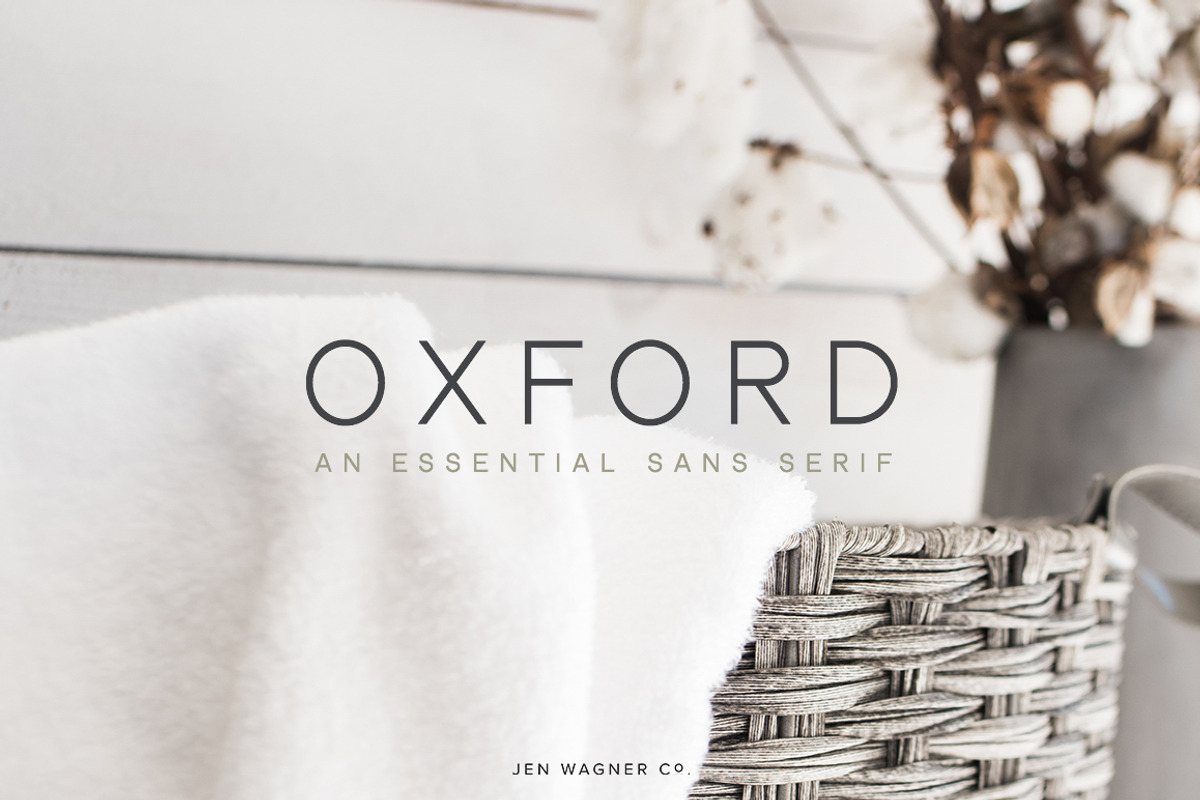
Oxford | Minimal Sans Serif
Oxford is a font that has already become a staple in all my freelance work. It is SO beautiful for quotes, logos, invitations, magazines, web, and more. With three weights (light, regular, + bold), it's easy to use in multiple contexts and works super well for branding suites.